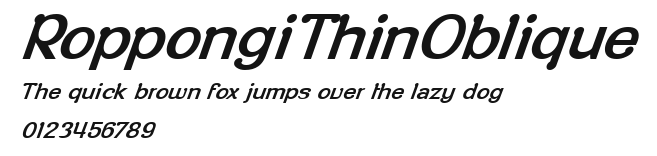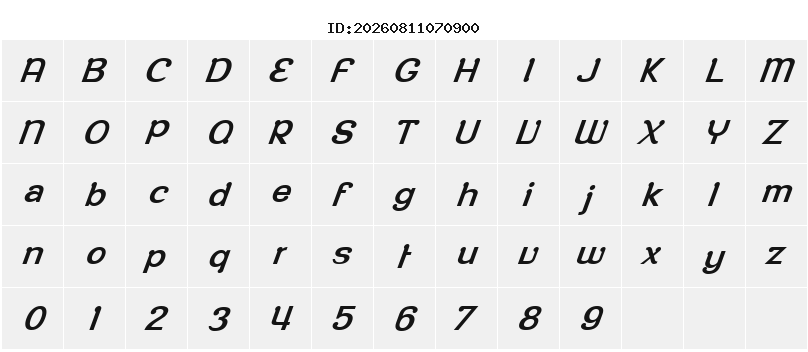
• Font Name: RoppongiThinOblique
• Full Font Name: RoppongiThinOblique
• PostScript Name: RoppongiThinOblique
About RoppongiThinOblique.ttf
RoppongiThinOblique.ttf is a modern, elegant sans-serif font designed for ultimate readability and visual harmony. Perfect for branding, headlines, web design, and print materials.